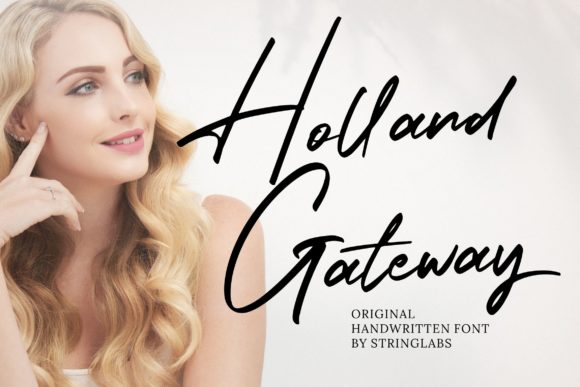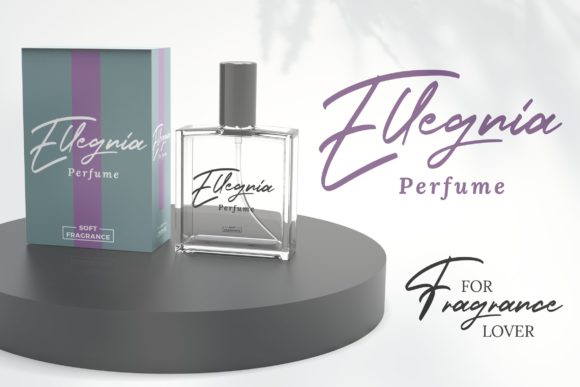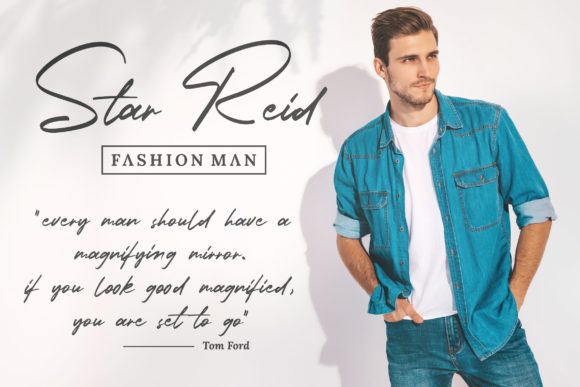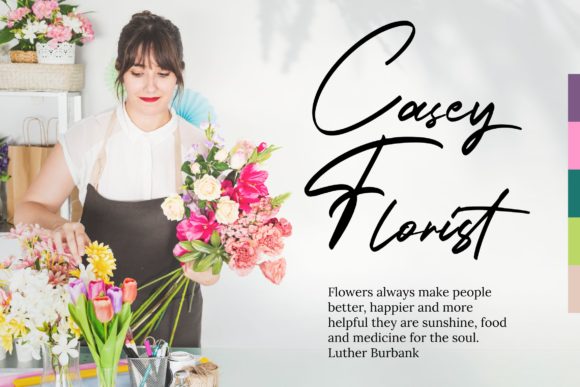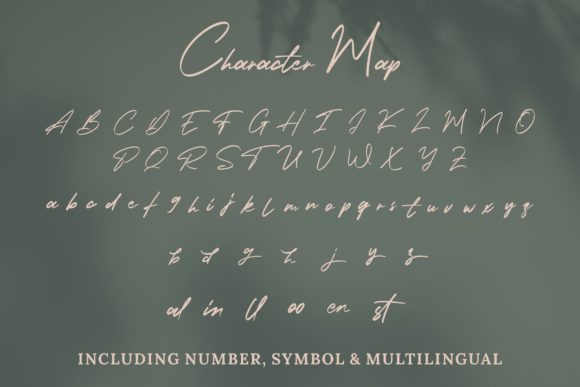
Holland Gateway Font
About Holland Gateway Font
Holland Gateway is a magical handwritten font carefully created with a touch of elegance. It will elevate a wide range of design projects to the highest level, be it branding, headings, wedding designs, invitations, signatures, logos, labels, and much more!